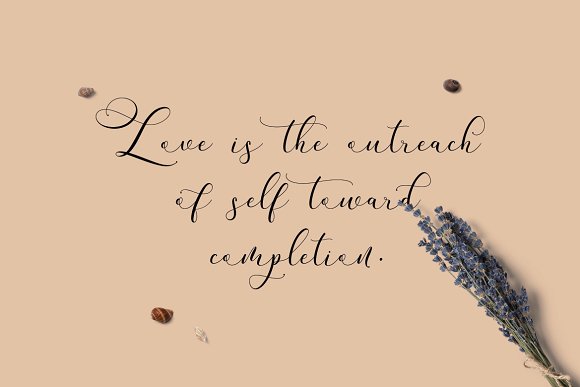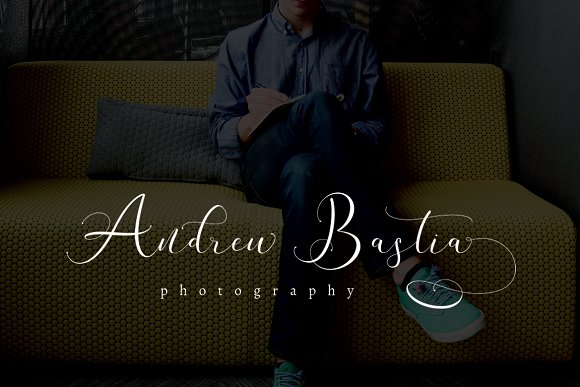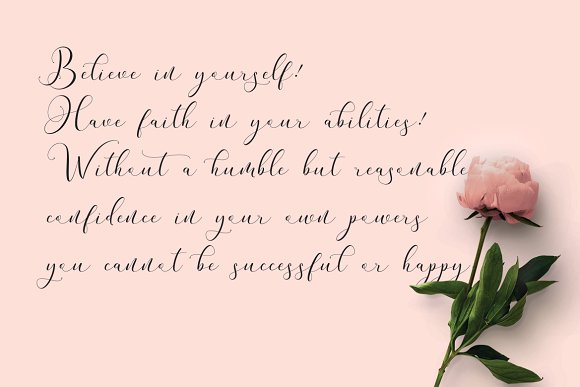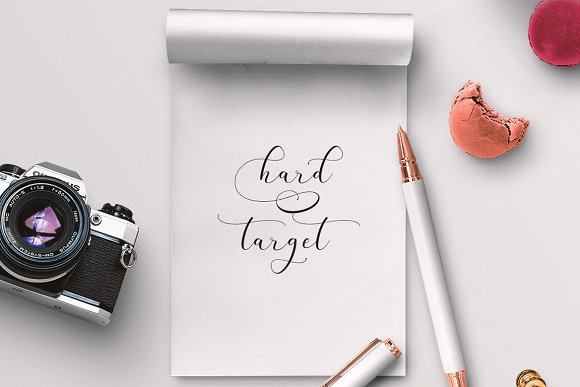
Andieny Font
Andieny Script is a hand lettered calligraphy font with a modern twist. Works great for invites, thank you cards and other craft-style items.